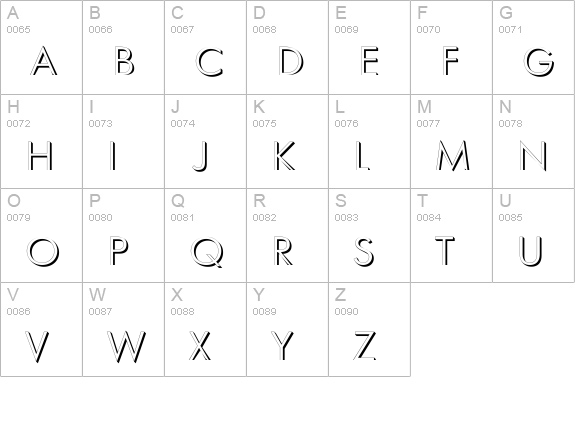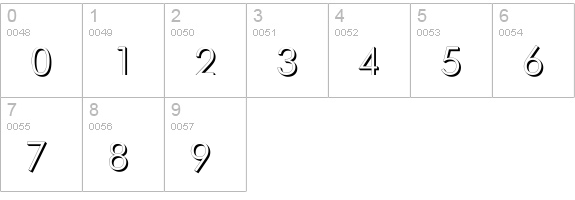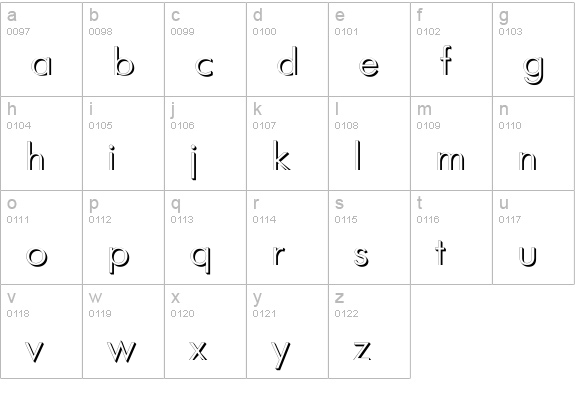
PT FuturisVolume Cyrillic Font Details
PT FuturisVolume Cyrillic font is a modern and stylish typeface that exudes a futuristic and sleek vibe. With its clean lines and geometric shapes, this font is perfect for adding a contemporary touch to any design project. The Cyrillic characters add an elegant and sophisticated look to the overall aesthetic. One of the best things about PT FuturisVolume Cyrillic font is that it is available for free download at FontsMarket.com. This means that you can easily access this beautiful font and use it in your designs without any cost. Whether you are working on a branding project, a website design, or any other creative endeavor, PT FuturisVolume Cyrillic font is a versatile choice that will help you stand out. Don't miss out on the opportunity to enhance your designs with this stunning font. Download PT FuturisVolume Cyrillic font for free today and take your projects to the next level.